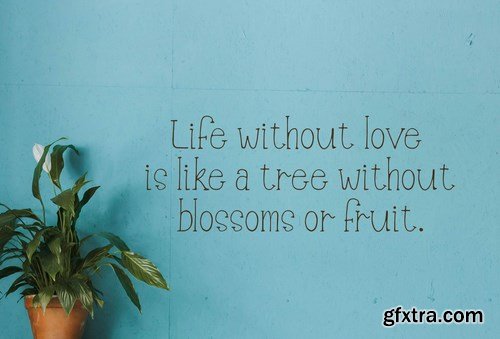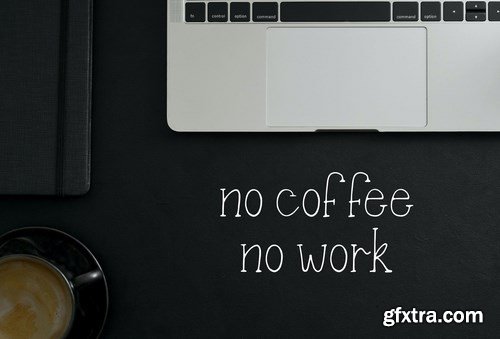
Kanayan font is inspired by funny design concepts and not serious design concepts. This font is good for cartoon, note, menu book, name card, kids designs.